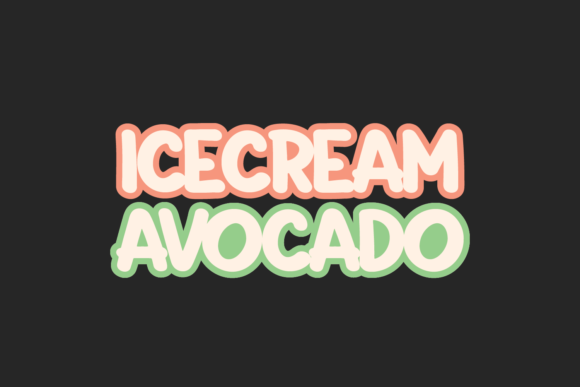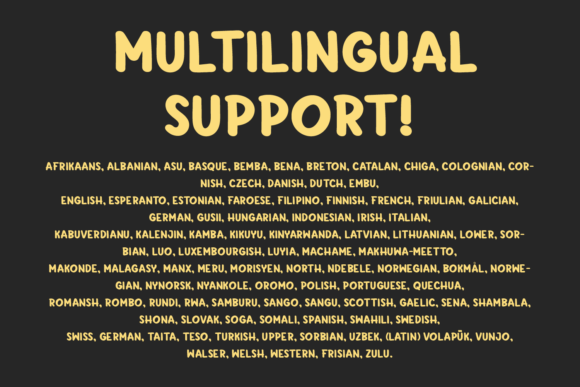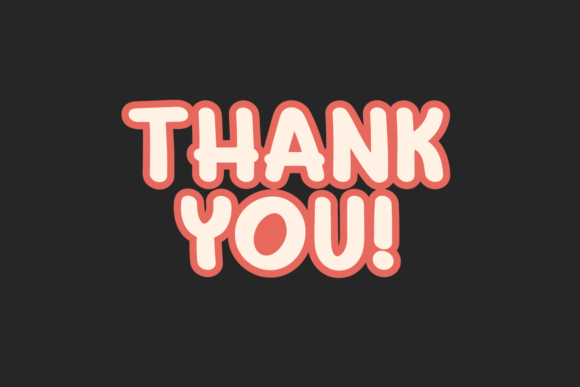
Dopeness Font: Elevate Your Designs with a Modern Display Font
In the world of design, fonts play a crucial role in conveying messages and capturing attention. For designers and crafters looking for a modern and edgy display font, Dopeness Font is an excellent choice. This font comes with extra extrude and shadows, making it perfect for creating visually striking designs. In this article, we’ll explore the features and uses of Dopeness Font, and how it can elevate your designs.
What is Dopeness Font?
Dopeness Font is a modern display font designed to make a statement. Its unique features include extra extrude and shadows, which give it a distinctive and eye-catching appearance. This font is ideal for designers who want to add a touch of modernity and edginess to their designs.
Key Features of Dopeness Font
- Modern Design: Dopeness Font boasts a sleek and contemporary design that’s perfect for modern designs.
- Extra Extrude and Shadows: The font’s extra extrude and shadows give it a 3D-like appearance, adding depth and dimension to your designs.
- High Versatility: Dopeness Font can be used for a wide range of design projects, from signs and posters to t-shirts, gaming, websites, and magazines.
- Easily Customizable: The font is easy to customize, allowing you to adjust the size, color, and style to fit your design needs.
Uses of Dopeness Font
Dopeness Font is a versatile font that can be used for various design projects, including:
- Signs and Posters: Create eye-catching signs and posters with Dopeness Font, perfect for advertising, promotions, or events.
- T-Shirts and Merchandise: Use Dopeness Font to create stylish and modern designs for t-shirts, hoodies, and other merchandise.
- Gaming: Add a touch of modernity to your gaming designs, such as logos, titles, and in-game text.
- Websites: Use Dopeness Font to create visually striking headings, titles, and other website elements.
- Magazines and Publications: Add a modern touch to your magazine or publication with Dopeness Font, perfect for headlines, titles, and other design elements.
Benefits of Using Dopeness Font
By using Dopeness Font, designers and crafters can benefit from:
- Unique and Eye-Catching Designs: Dopeness Font helps create visually striking designs that capture attention.
- Time-Saving: The font’s versatility and customizability save time and effort in design projects.
- Professional Look: Dopeness Font gives your designs a professional and modern look, perfect for businesses, brands, and individuals.
Tips for Using Dopeness Font
To get the most out of Dopeness Font, follow these tips:
- Experiment with Colors: Try different color combinations to find the perfect match for your design.
- Adjust Font Size: Experiment with different font sizes to create visual hierarchy and emphasis.
- Combine with Other Fonts: Pair Dopeness Font with other fonts to create a unique and visually striking design.
| Font Name | Dopeness Font |
| Author | Eifets |
Dopeness Font is a modern display font that offers a unique and eye-catching design, perfect for designers and crafters looking to elevate their designs. With its extra extrude and shadows, this font is ideal for creating visually striking signs, posters, t-shirts, gaming designs, websites, magazines, and more. By using Dopeness Font, you can create professional-looking designs that capture attention and convey your message effectively.